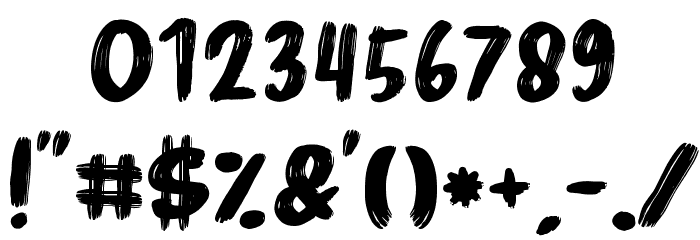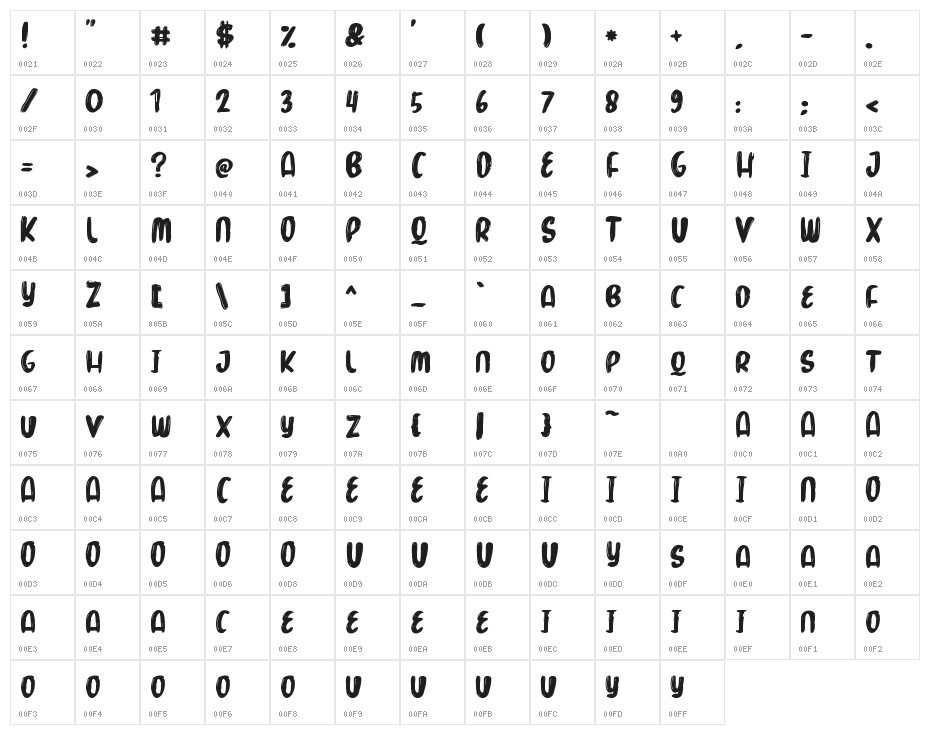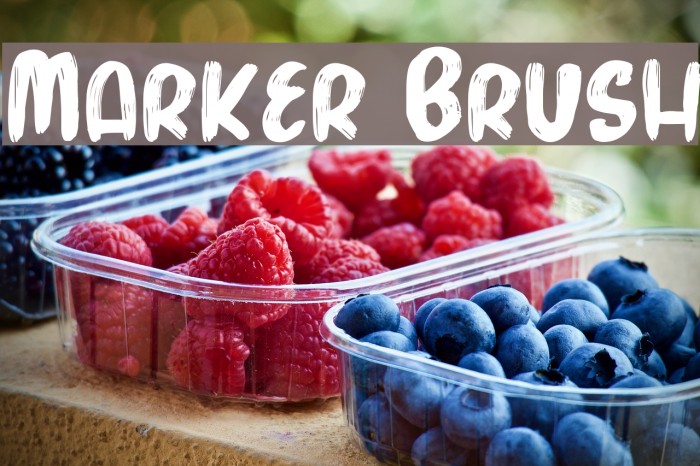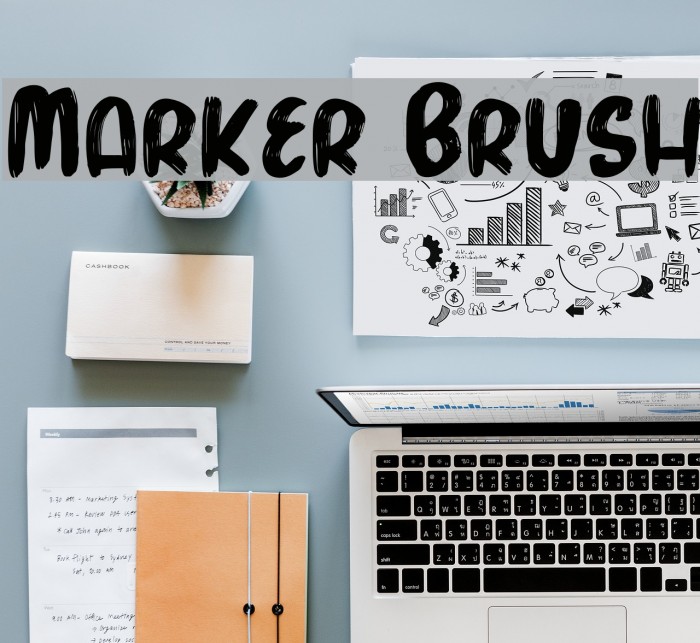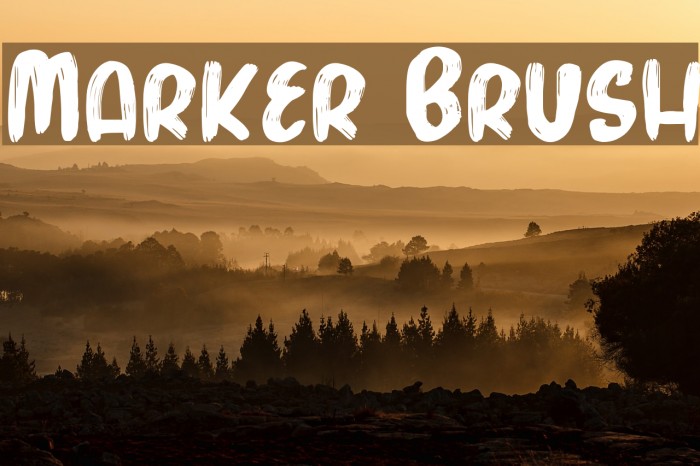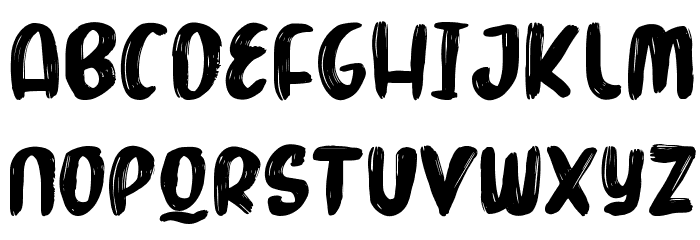
Marker Brush Font
Marker Brush Description
This font exudes a bold and energetic style, reminiscent of strokes made with a thick brush or marker. Each character is crafted with a sense of movement and fluidity, creating a dynamic and artistic appearance. The strokes are uneven, adding a hand-drawn, organic feel to the text. The uppercase and lowercase letters maintain a consistent weight, while the numbers and special characters complement the overall aesthetic. This font is perfect for projects that require a touch of creativity and expressiveness, such as posters, branding, or artistic designs.
| Use Case | Headlines, Logos, Artistic designs |
| Proposed Projects | Ideal for posters, branding, artistic designs, and any project needing a creative touch. |